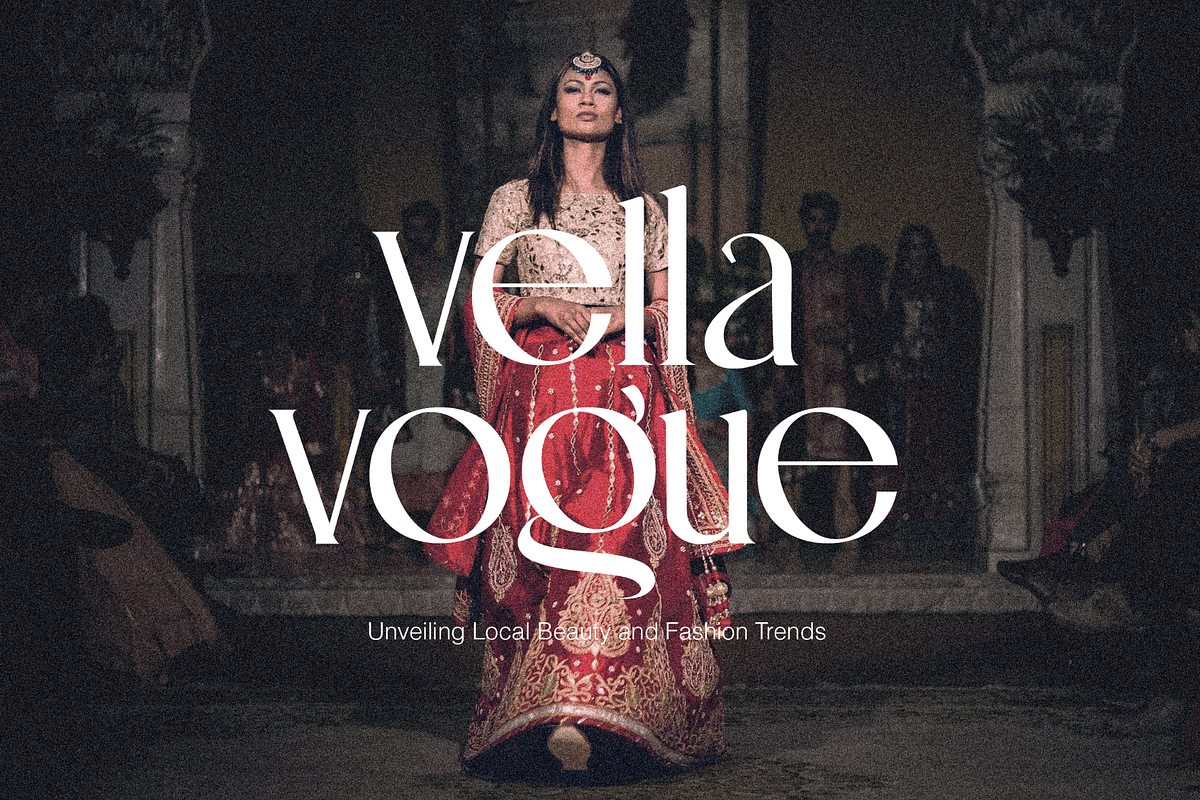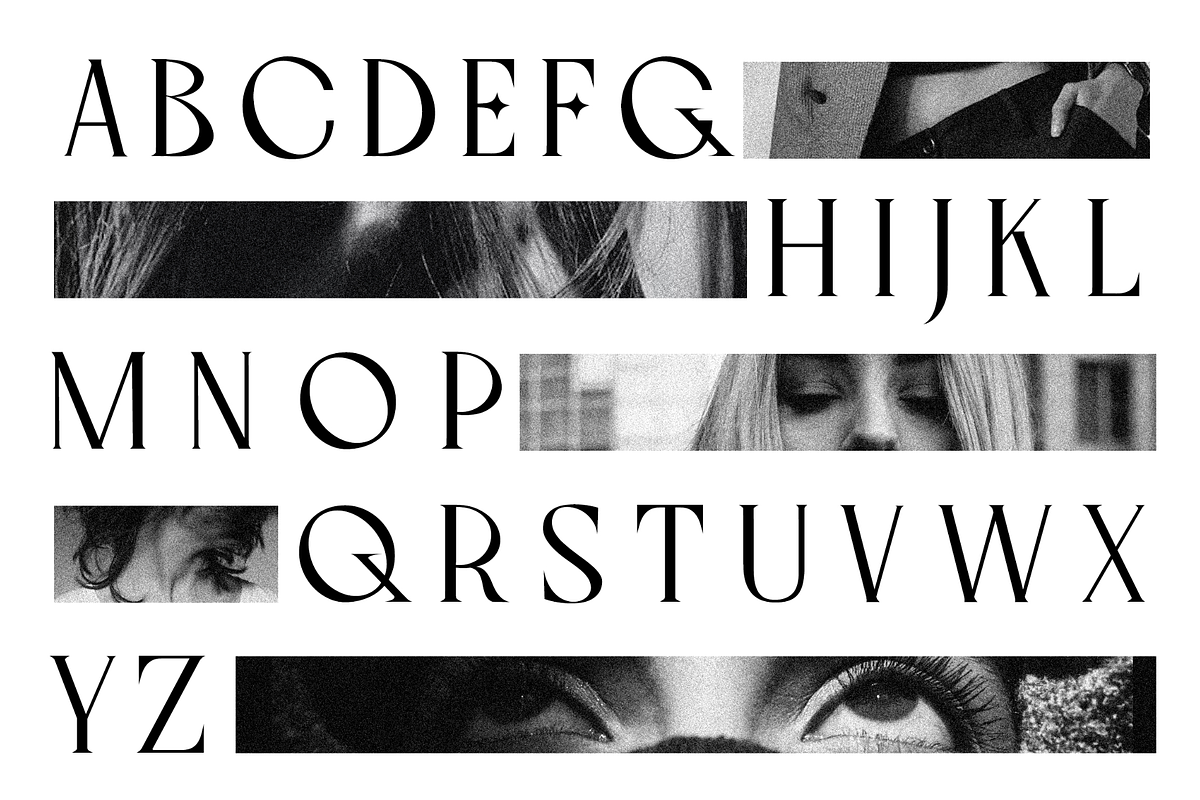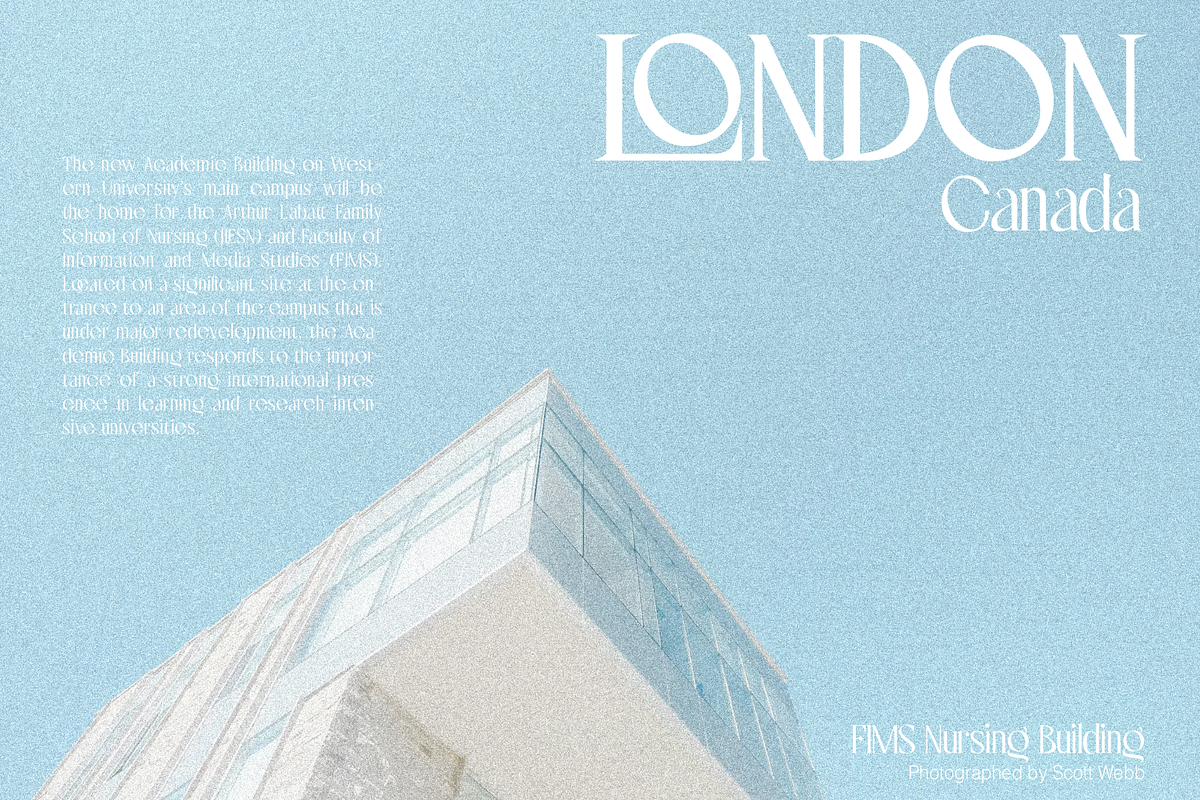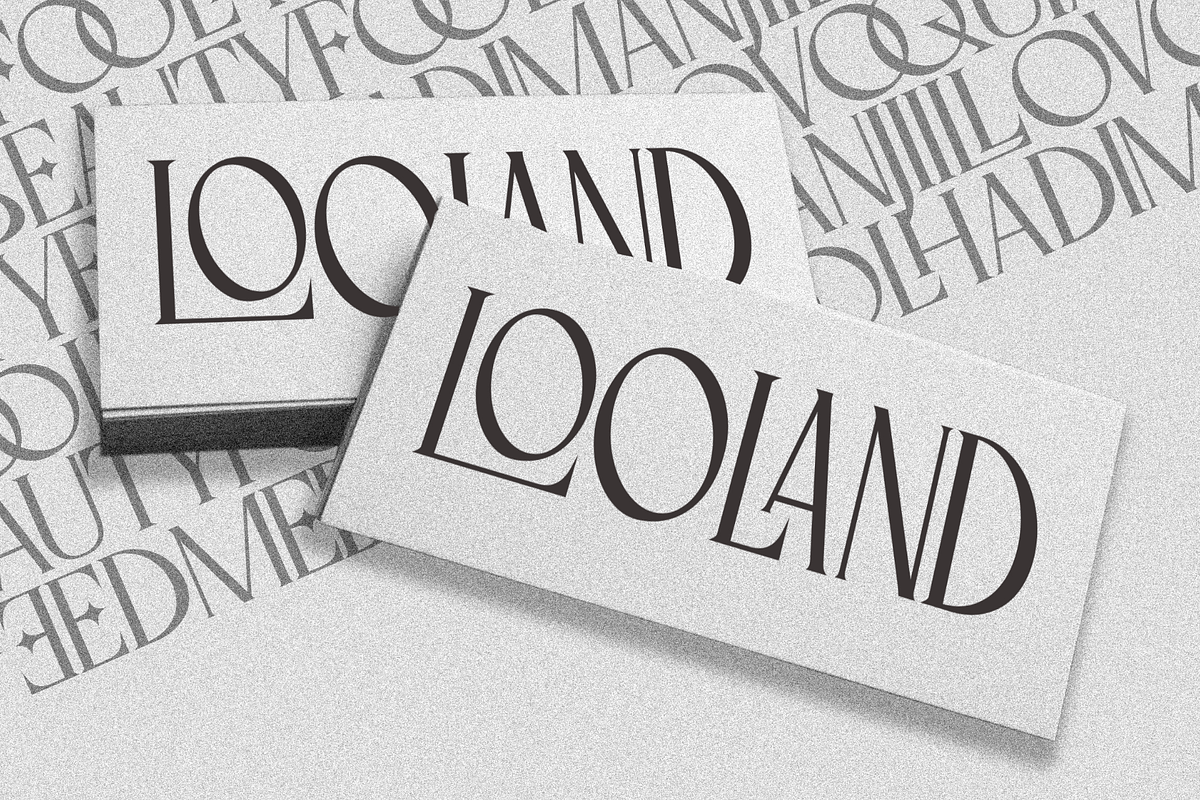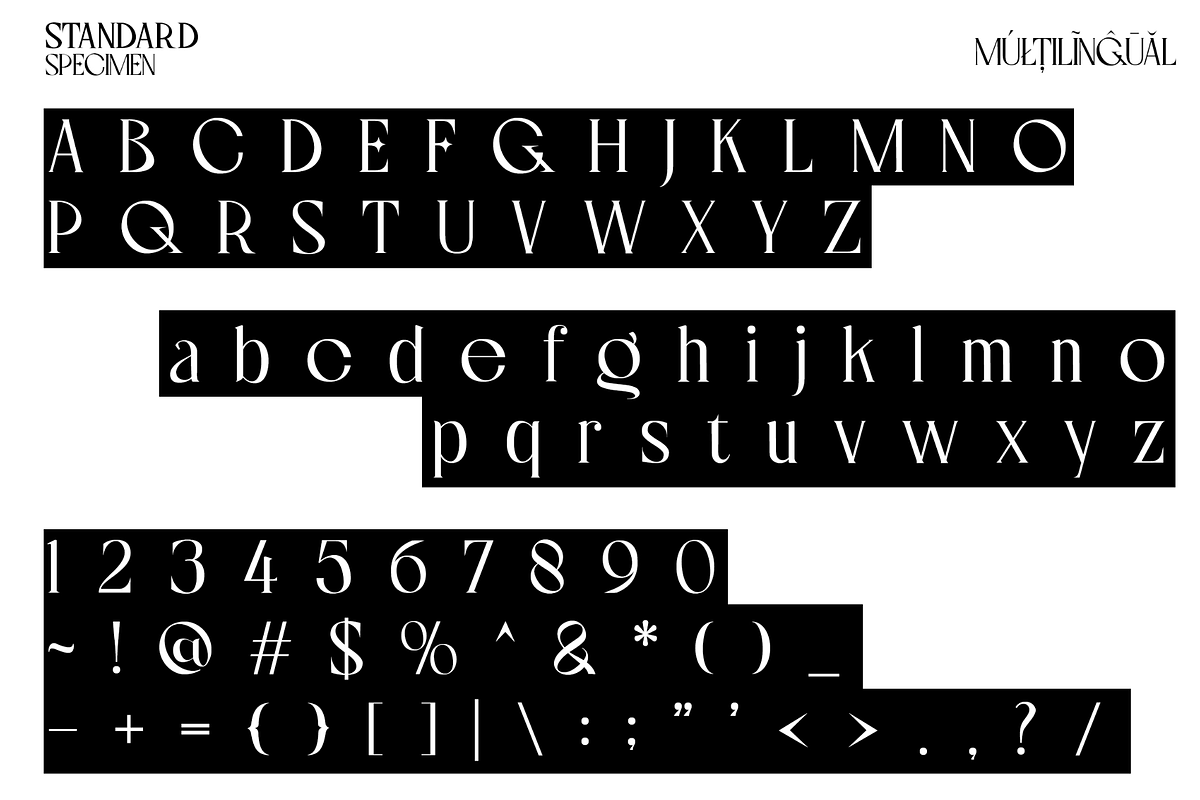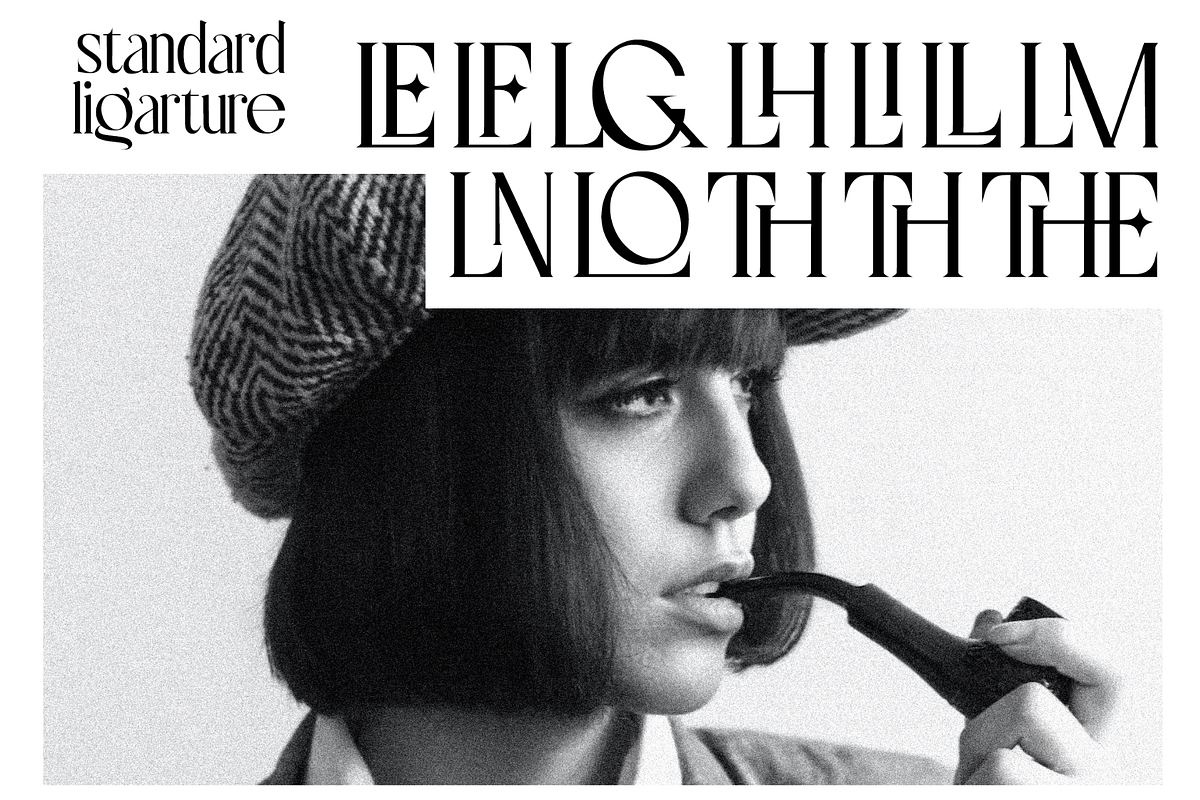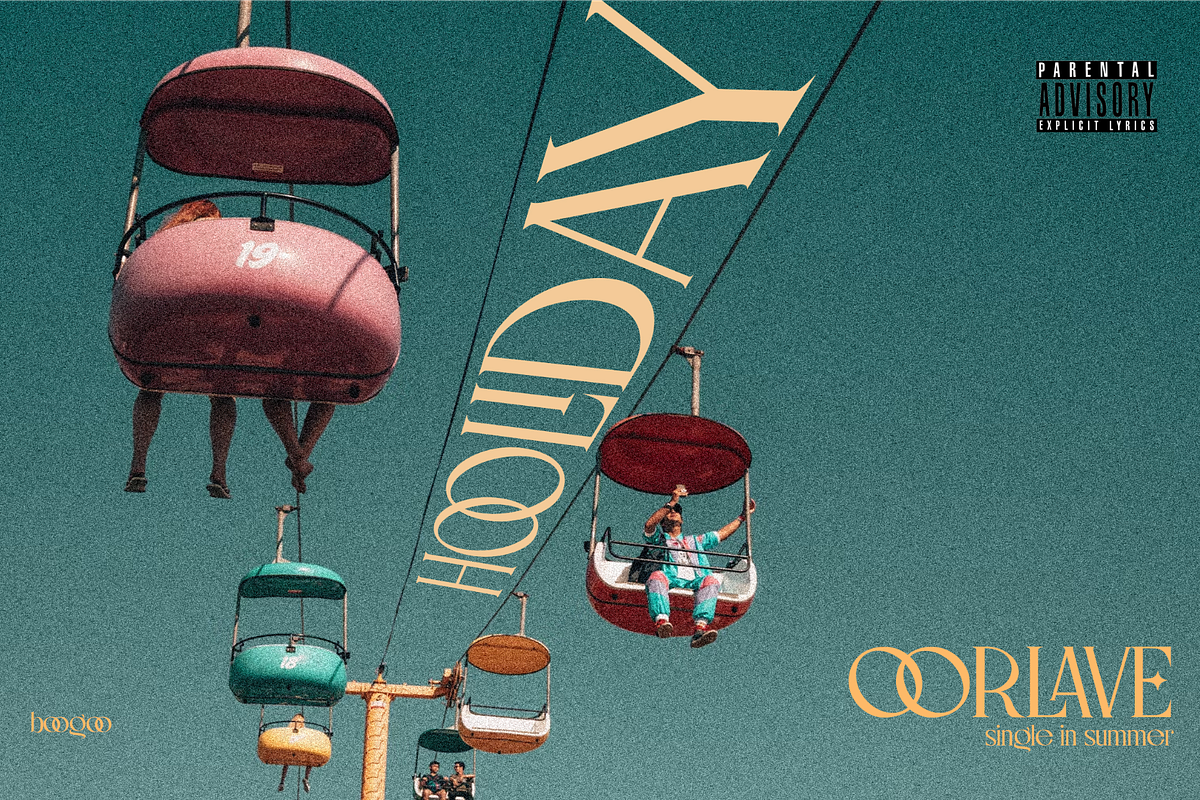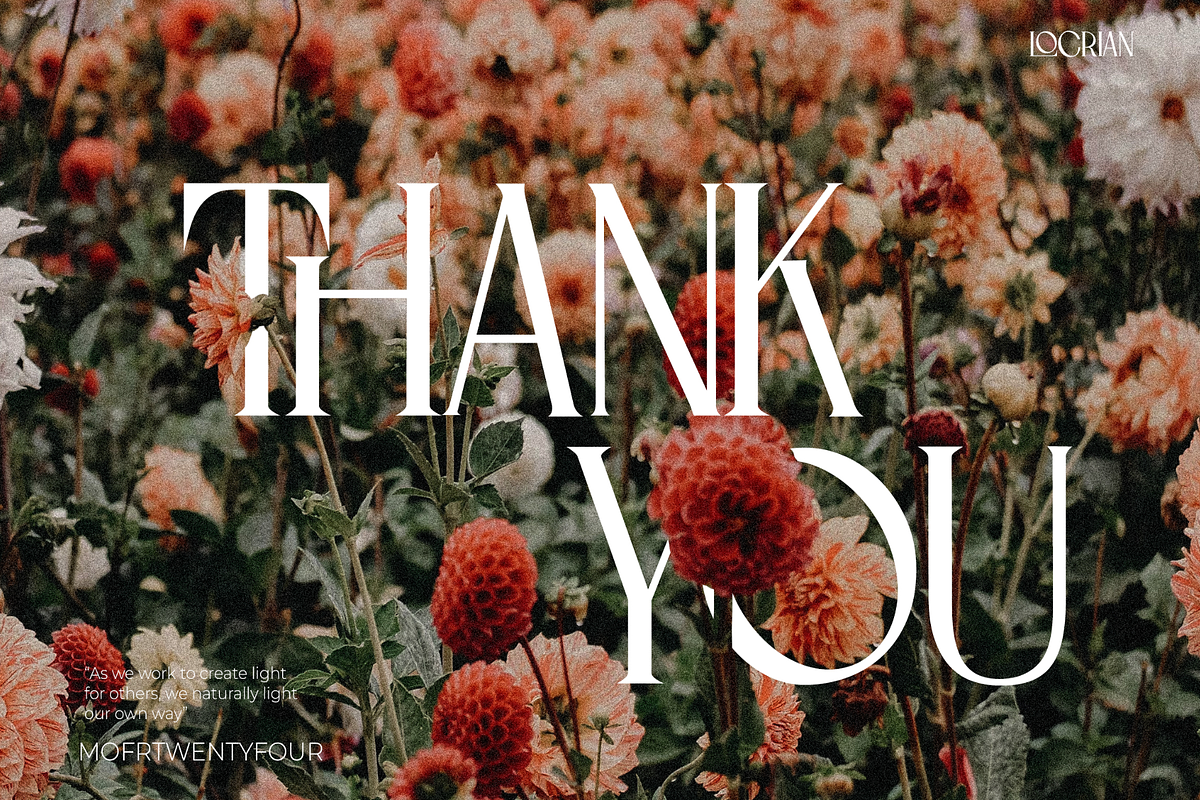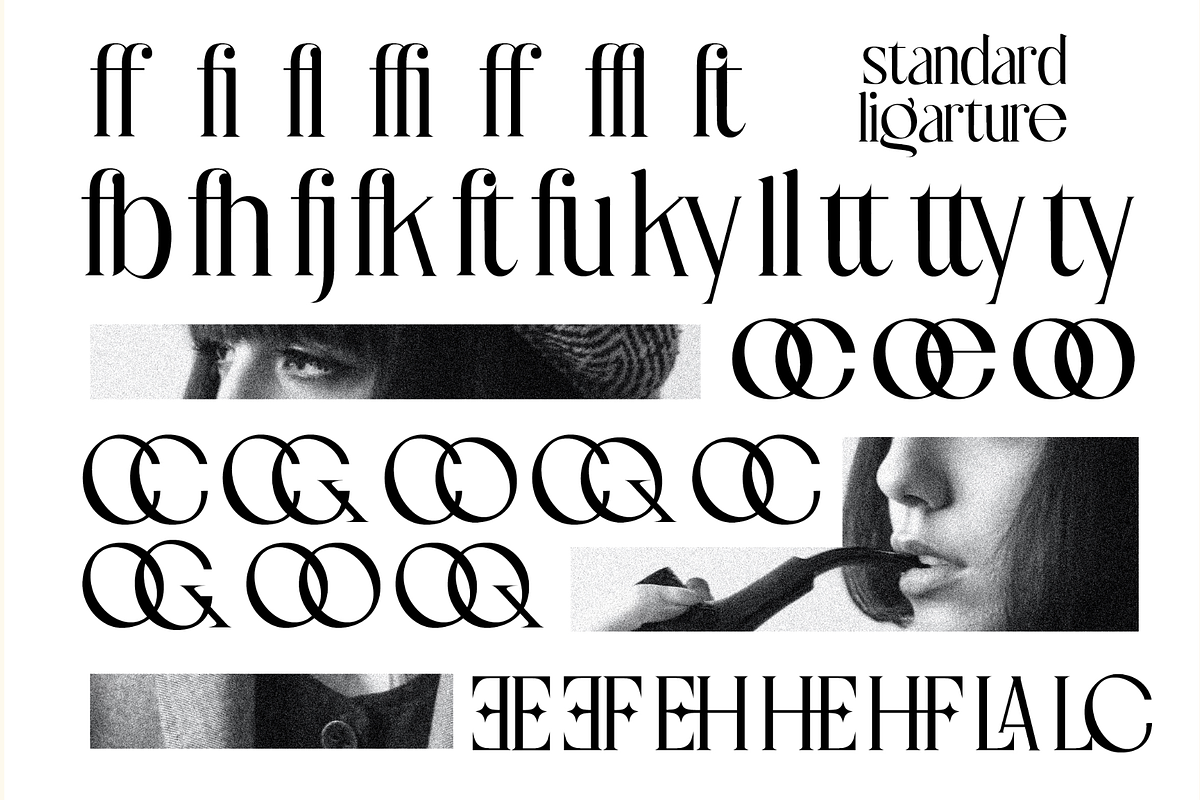
Locrian - A Chic Serif Font
Introducing "Locrian," a chic serif font that seamlessly blends elegance with retro-modern appeal. With clean lines and rich ligatures, this multilingual typeface exudes sophistication. Available in bold and regular weights, Locrian is versatile for various design applications like typography art, movie posters, headlines, t-shirt designs, and logotypes. Its timeless aesthetic makes it a perfect choice for creating visually striking and memorable compositions.